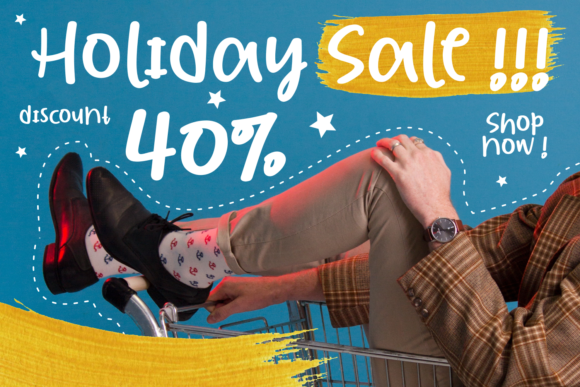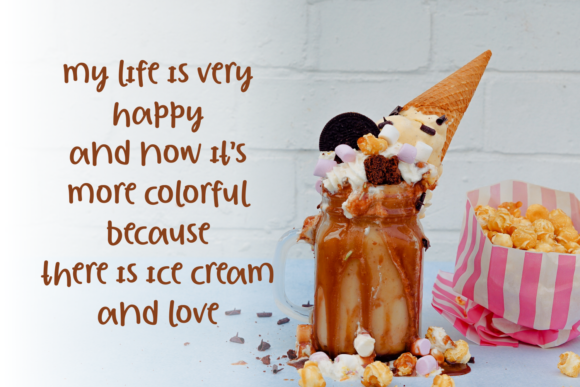
Borjuis Font
About Borjuis Font
Introducing The Borjuis, a whimsical script font that radiates with a fun and playful style, bringing a unique and striking look to your creative designs. This font is more than just a typographic choice; it’s a design asset that adds a touch of personality and charm to a variety of projects.
The Borjuis stands out for its whimsical and playful script, making it perfect for injecting a sense of joy into your designs. Whether you’re working on invitations, posters, product packaging, social media graphics, or any project that demands a vibrant and lighthearted touch, The Borjuis is the ideal choice.
The fun and playful style of The Borjuis ensures that your designs stand out with a distinctive and memorable appearance. Its uniqueness lies in its ability to convey a sense of creativity and whimsy, making it suitable for a range of applications where you want to add a touch of individuality.
This font is not just about letters and words; it’s about creating an experience for your audience. Its striking look adds an element of surprise and visual interest, making it a valuable asset for anyone who wants to make a bold statement with their designs.
In summary, The Borjuis is your go-to font for a whimsical and playful aesthetic that brings an unique and striking look to your projects. Embrace the fun style of The Borjuis and let it infuse your designs with personality, making them stand out with a delightful and memorable appeal.